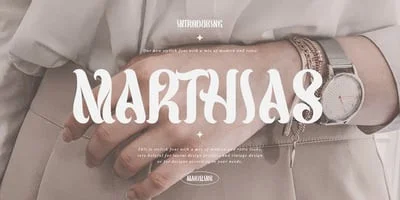
Marthias Font
Marthias Font is perfect for elegant branding, luxury packaging, sophisticated stationery, premium publications, upscale restaurants, refined corporate communications, and distinguished visual applications. This graceful typeface brings timeless elegance and sophisticated charm to prestigious design projects.
Marthias Font is exciting because it embodies classical sophistication with its refined letterforms that convey elegance and distinction while maintaining exceptional readability and timeless appeal across luxury and premium applications.
The Marthias Font family includes multiple weights and stylistic variations that reflect the sophisticated character of premium design excellence. This elegant collection provides designers with refined options for creating memorable and distinctively sophisticated brand experiences.
Marthias Font provides access to an elegantly crafted typeface that captures the essence of refined sophistication and timeless elegance. This distinguished font features carefully designed letterforms with sophisticated details that create immediate associations with luxury, refinement, and distinguished taste. The typeface showcases elegant proportions and premium aesthetics that enhance luxury communications while maintaining professional functionality and broad appeal. Its sophisticated character makes it particularly suitable for premium brands and upscale establishments that require typography capable of conveying elegance, distinction, and refined sophistication. Marthias Font delivers exceptional elegant impact for applications where ordinary fonts lack the refinement and distinguished character necessary for luxury positioning and premium communications. The font's elegant appeal and sophisticated aesthetic make it an essential tool for designers working on projects that require typographic expression of luxury, refined elegance, and distinguished sophistication that resonates with audiences seeking authentic premium experiences and sophisticated visual communication.